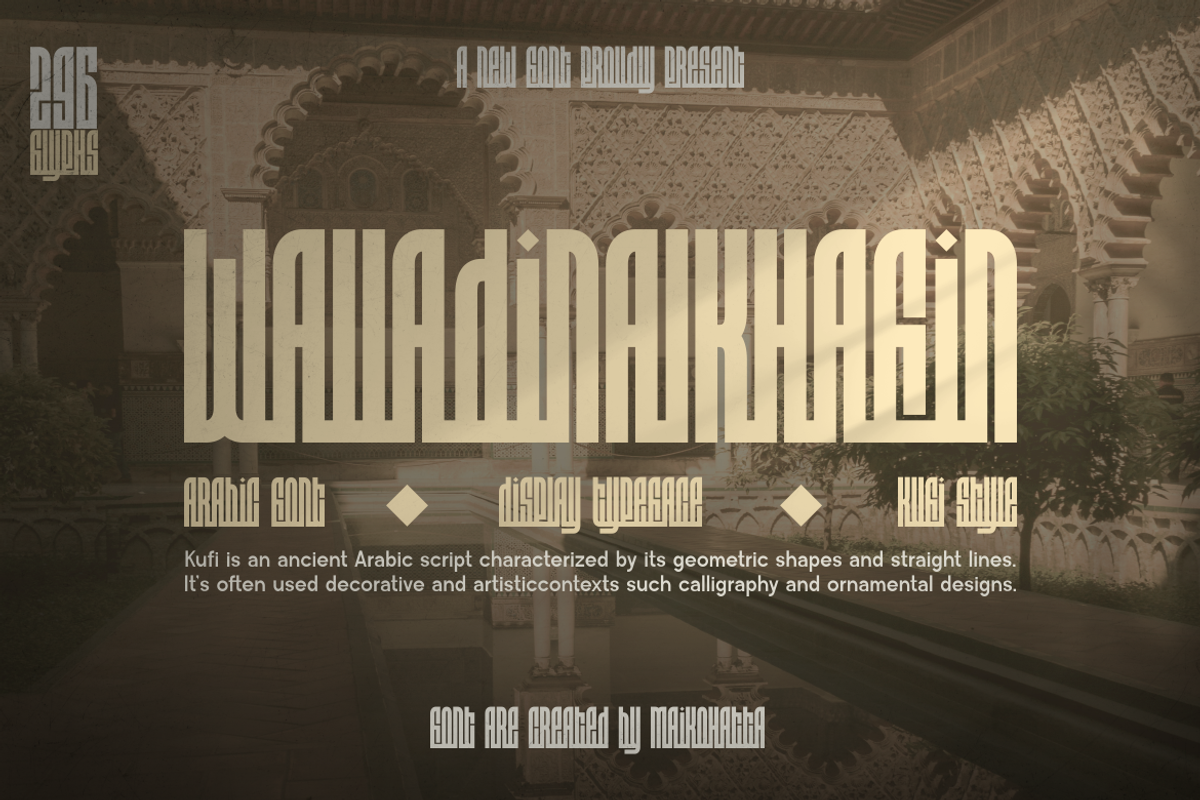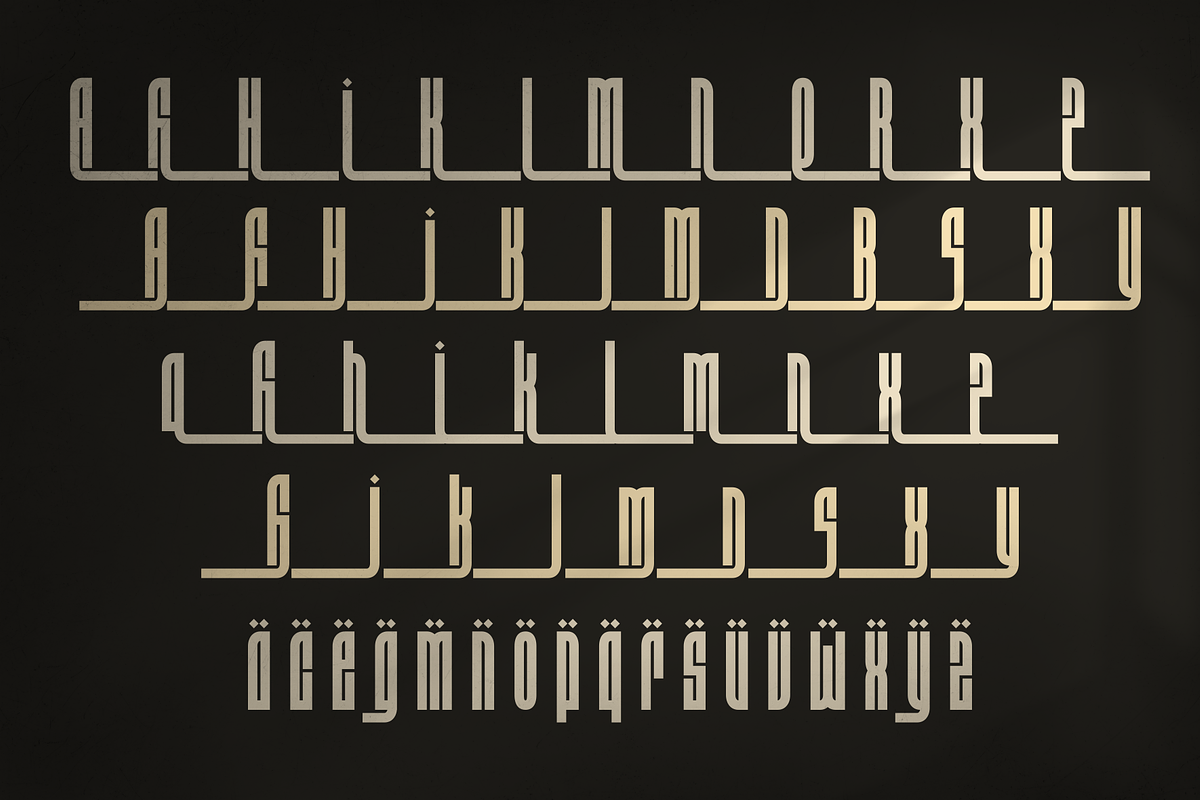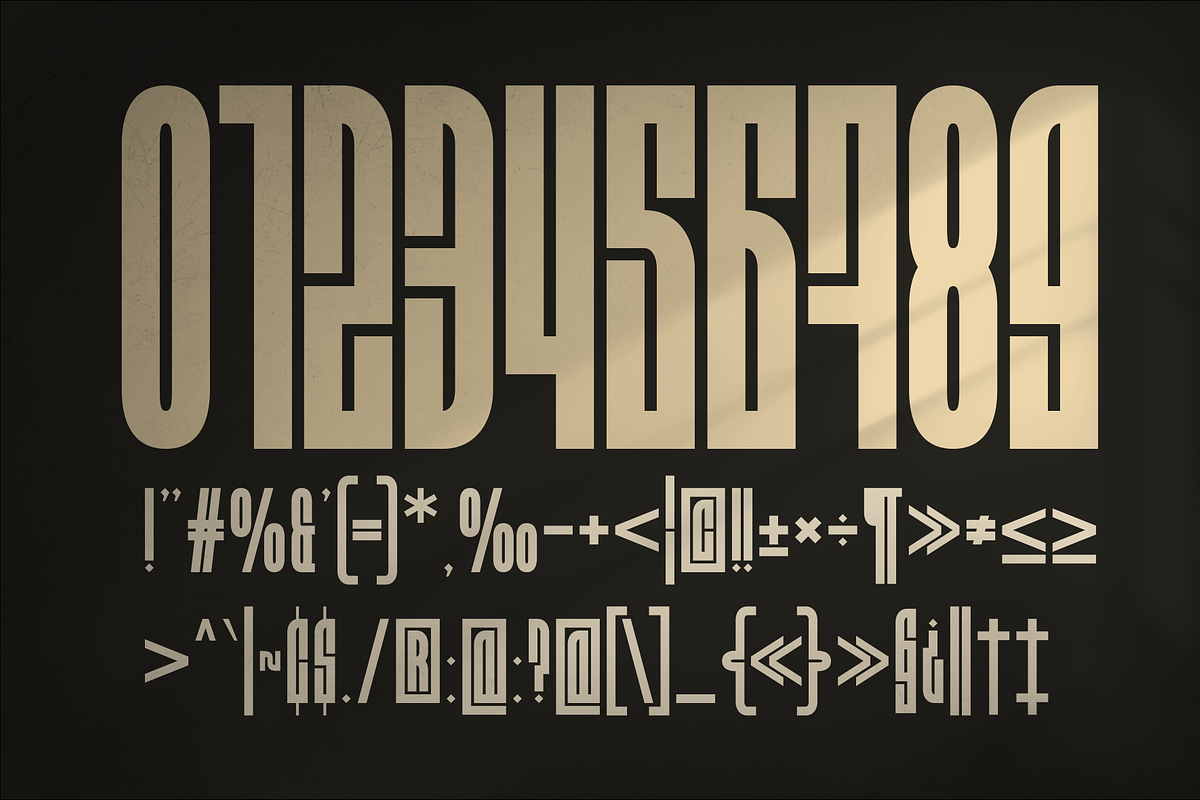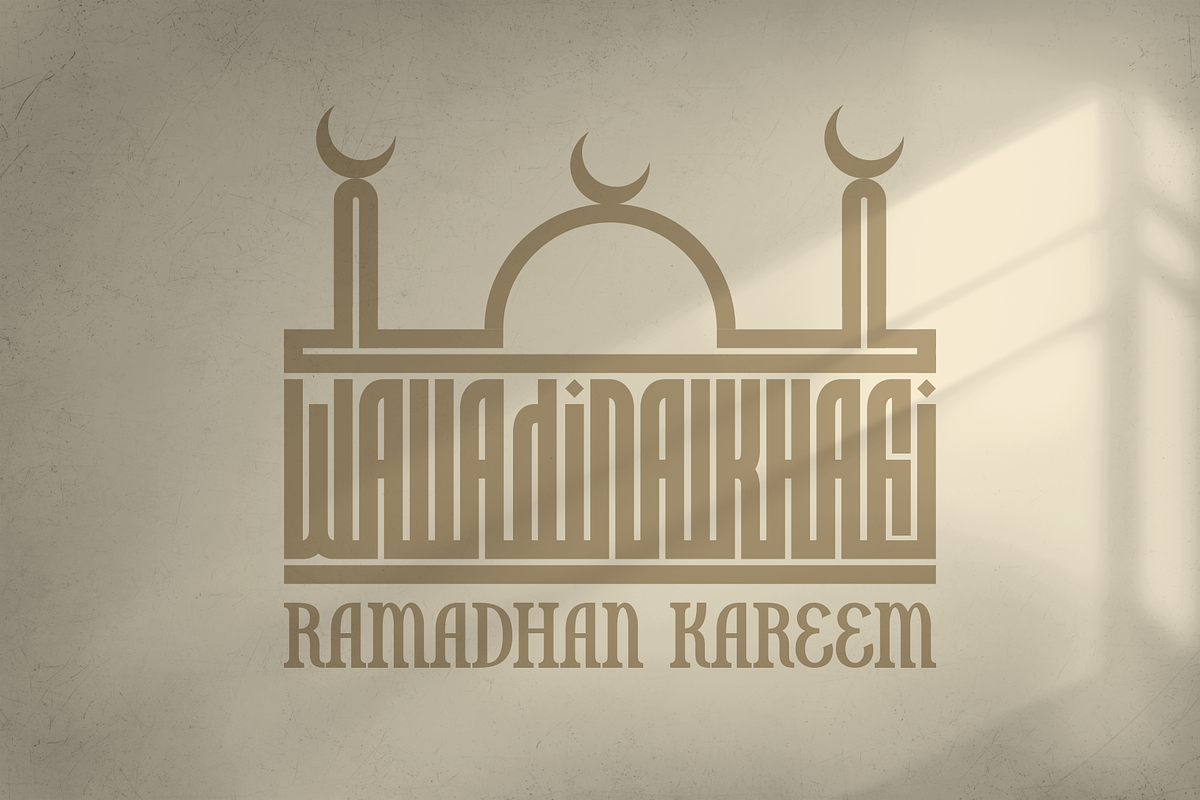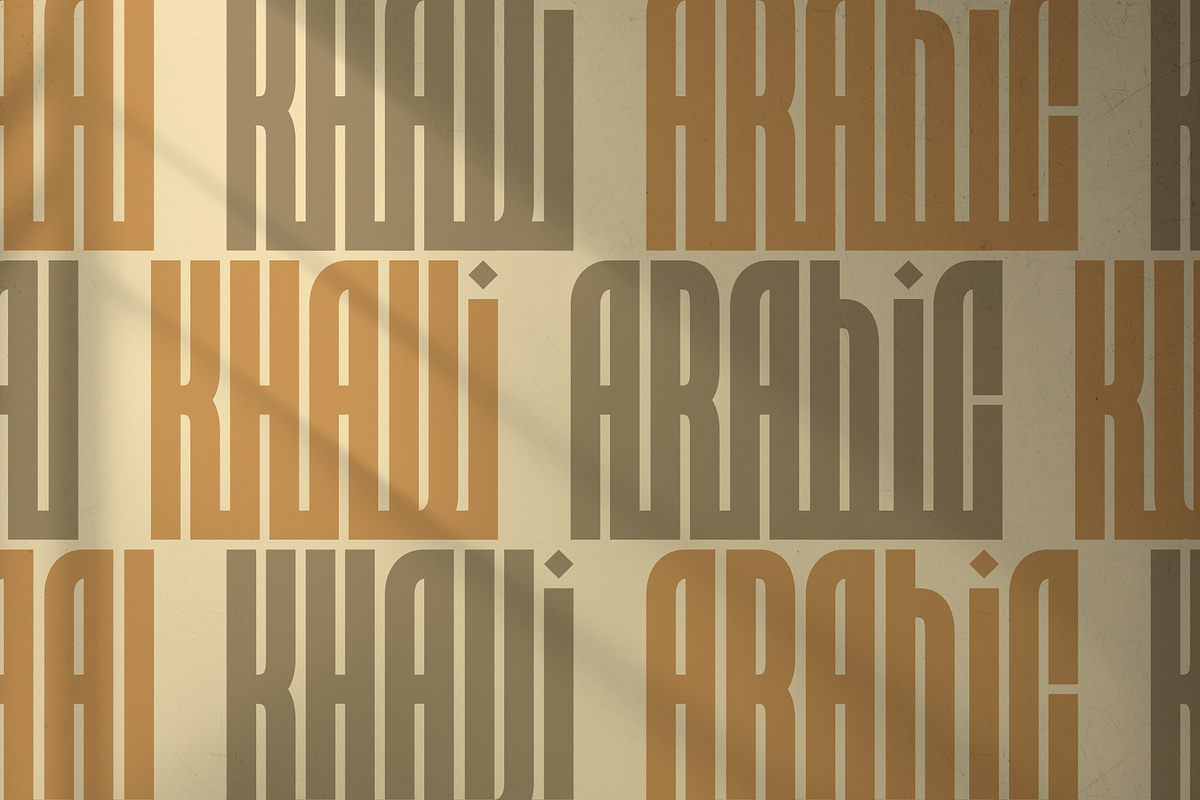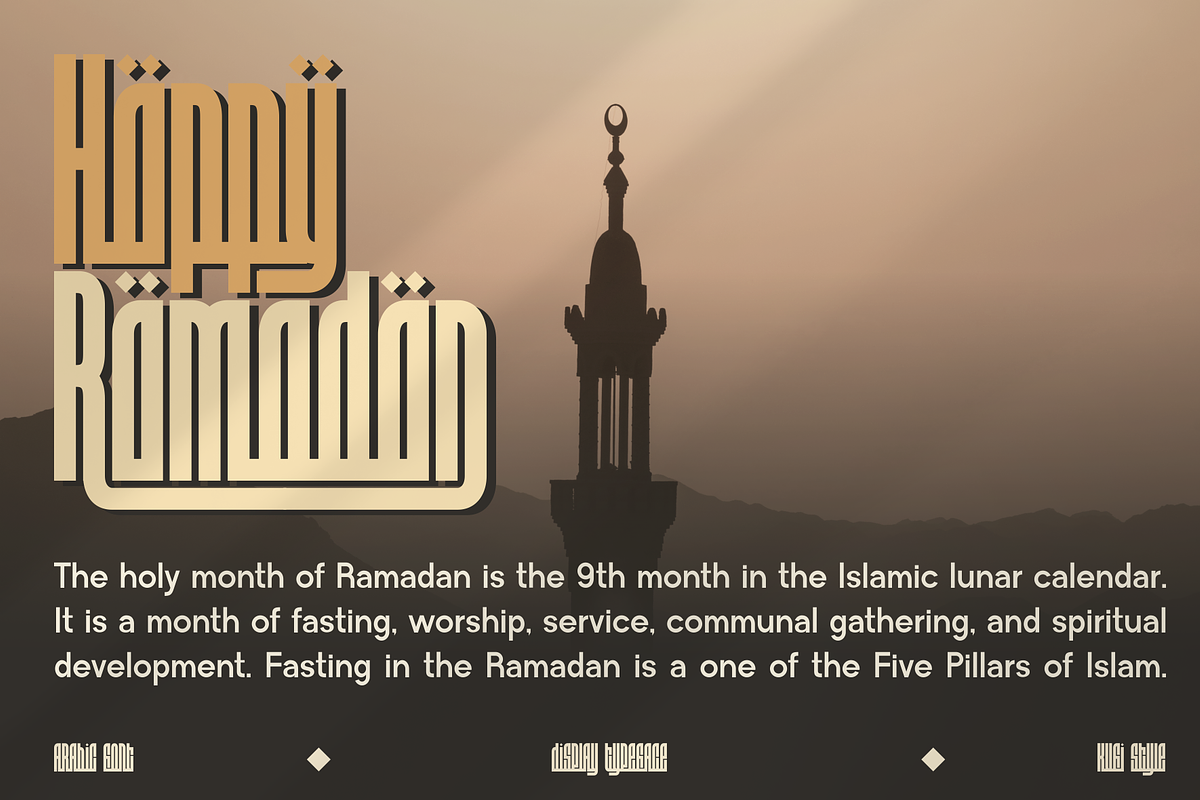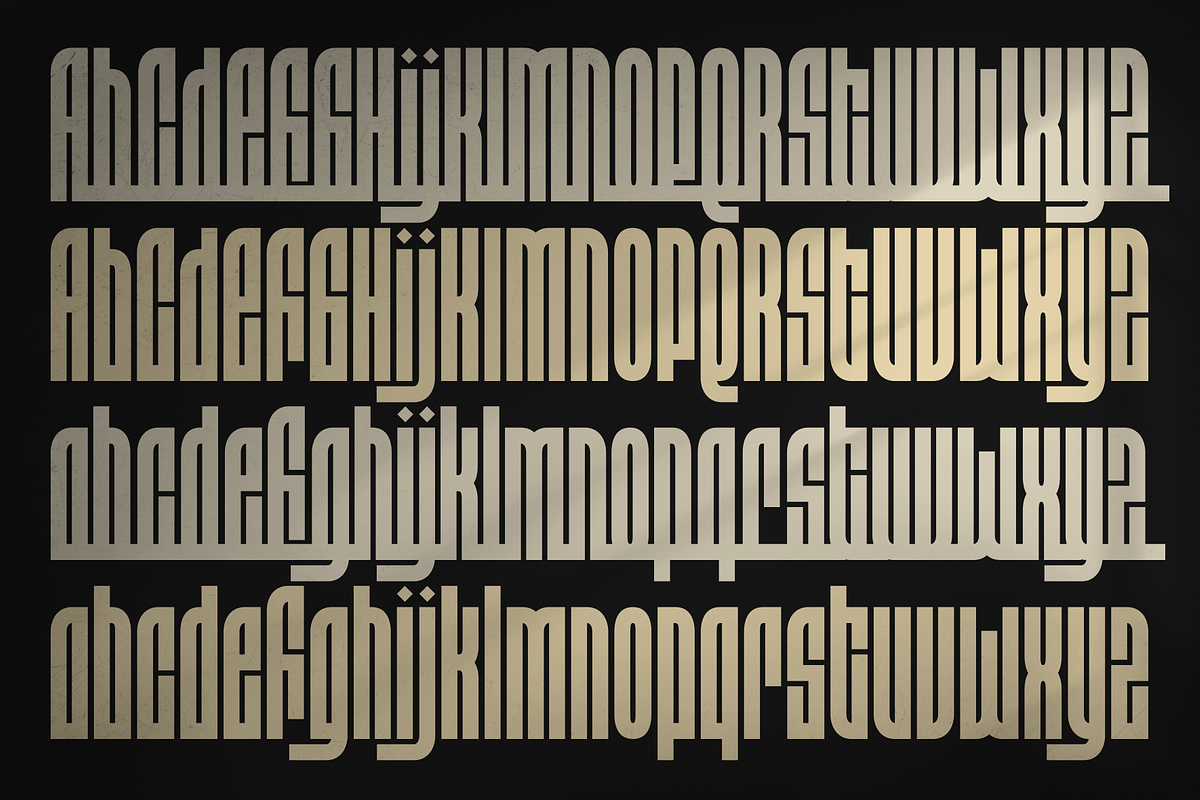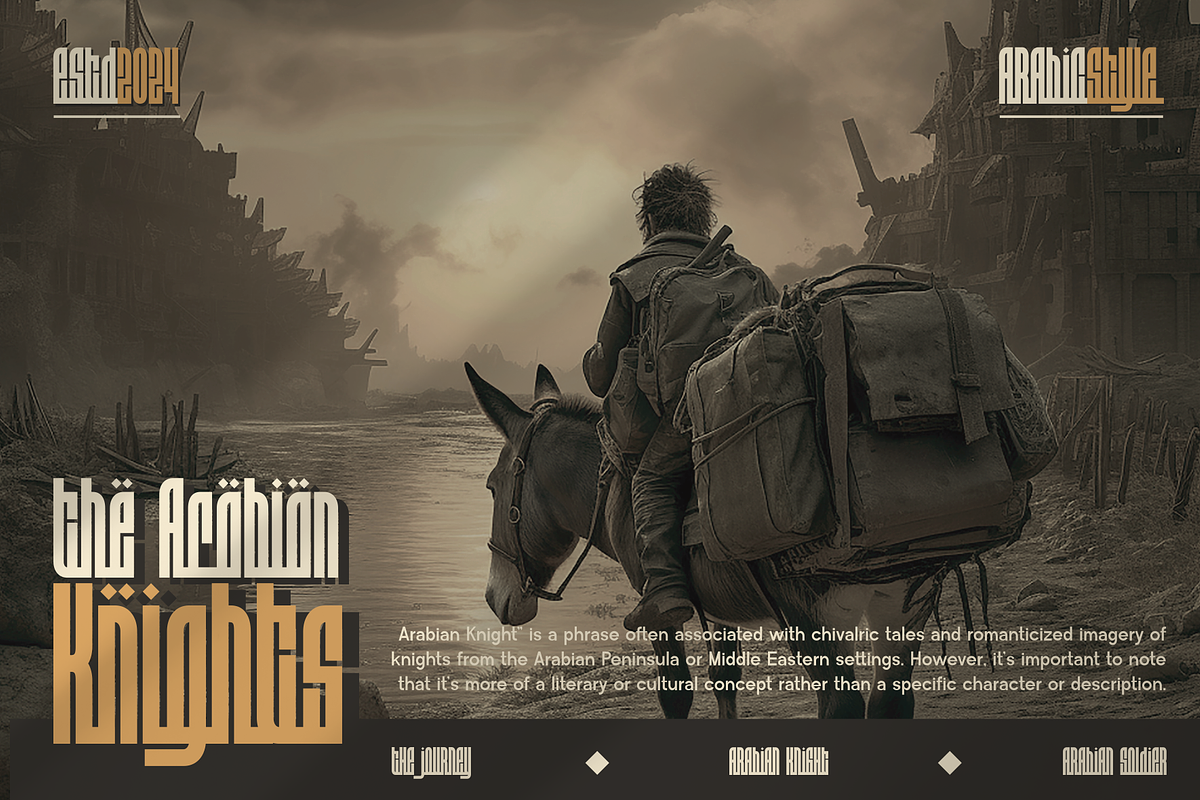
Walladinalkhafin - Arabic Kufi
Introducing our new product Walladinalkhafin - Arabic Kufi
Walladinalkhafin - Arabic Kufi is a bold and authentic display font. The font is suitable for any branding project like logo, Template Design, esport, and many more. outstanding in a wide range of contexts.